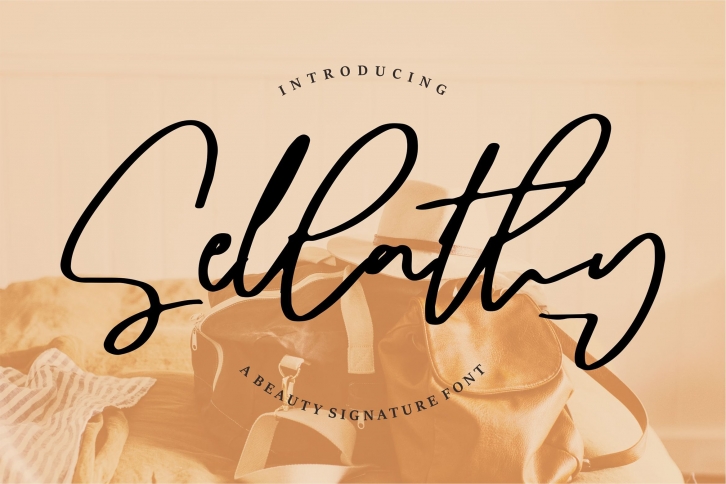
Sellathy is a great font that was designed by Vunira. Imagine the amount of combinations you can create using this font! The archive is 3.5 MB and it was released on March 19, 2021. Sellathy looks beautiful on wedding invitations, greeting cards, logos, posters, labels, t-shirt designs, logos, business cards and is perfect for use in ink or watercolor works, fashion, magazines, packaging and food menus, children's books and more!